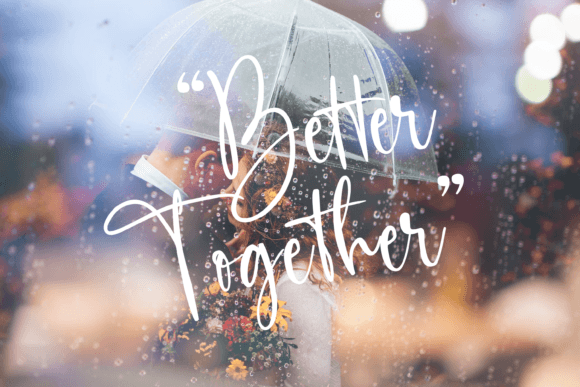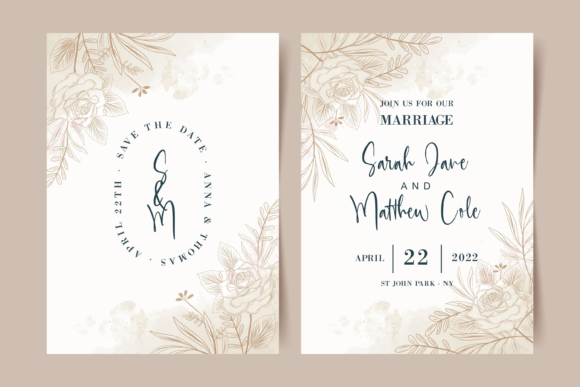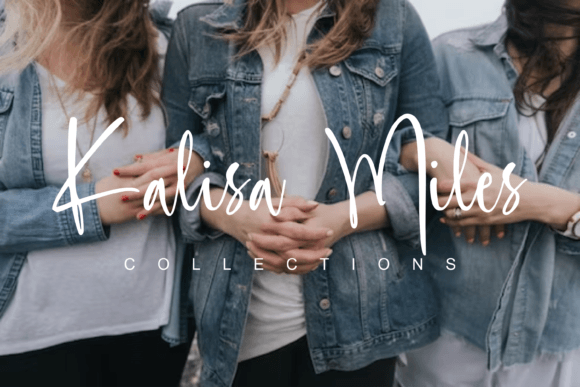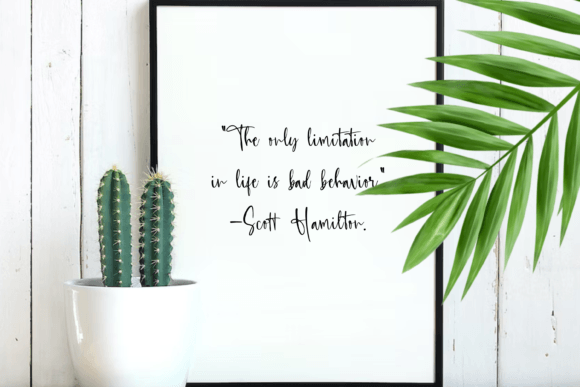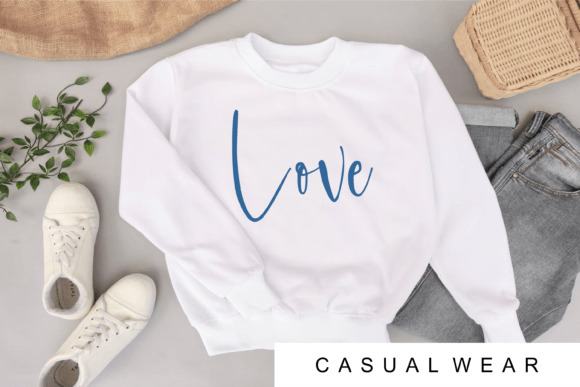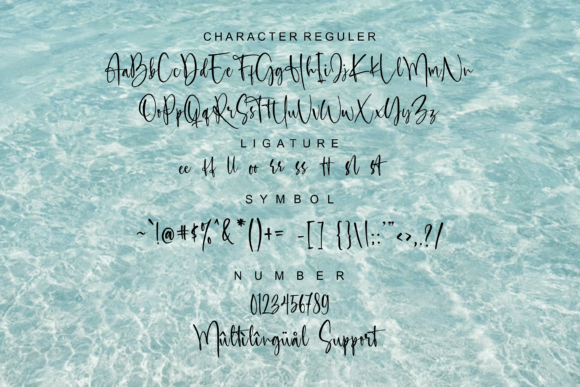
Introducing Blue Lagoon Font: The Perfect Handwritten Script for Creative Projects
Are you looking for a unique and authentic handwritten font to elevate your creative projects? Look no further than Blue Lagoon Font, an original handwritten script that is sure to turn your ideas into works of art. Made using a ballpoint pen on calendar paper, this font features distinctive unstructured strokes at the ends, giving it a charming and organic feel.
What Makes Blue Lagoon Font Special?
Blue Lagoon Font is a one-of-a-kind handwritten script that is perfect for a variety of creative projects. Whether you’re looking for a font for social media, a calligraphy script for a DIY project, or a unique font for wedding invitations, this font is sure to impress. Its authentic handwritten touch makes it ideal for adding a personal touch to your designs, and its versatility ensures that it can be used for a wide range of applications.
Uses for Blue Lagoon Font
So, what can you use Blue Lagoon Font for? The possibilities are endless! Here are just a few ideas to get you started:
- Handwritten quotes: Add a touch of elegance and sophistication to your quotes with Blue Lagoon Font.
- Notes: Use Blue Lagoon Font to add a personal touch to your notes and letters.
- Labels: Create beautiful and unique labels for your products or gifts.
- Wedding invitations: Make your wedding invitations truly special with Blue Lagoon Font.
- Jewelry: Use Blue Lagoon Font to create beautiful and eye-catching jewelry designs.
- DIY projects: Add a touch of handmade charm to your DIY projects with Blue Lagoon Font.
- Symbol
- Ligature
Why Choose Blue Lagoon Font?
So, why should you choose Blue Lagoon Font for your creative projects? Here are just a few reasons:
- Unique and authentic handwritten script
- Perfect for a wide range of creative projects
- Easy to use and versatile
Tips for Using Blue Lagoon Font
Here are a few tips for getting the most out of Blue Lagoon Font:
- Experiment with different sizes and colors to find the perfect look for your project.
- Use Blue Lagoon Font to add a personal touch to your designs.
- Combine Blue Lagoon Font with other fonts and graphics to create a unique and eye-catching design.
Blue Lagoon Font is a unique and authentic handwritten script that is perfect for a wide range of creative projects. With its distinctive unstructured strokes and charming organic feel, this font is sure to turn your ideas into works of art. Whether you’re a designer, crafter, or DIY enthusiast, Blue Lagoon Font is a must-have addition to your font collection. So why wait? Download Blue Lagoon Font today and start creating something truly special!